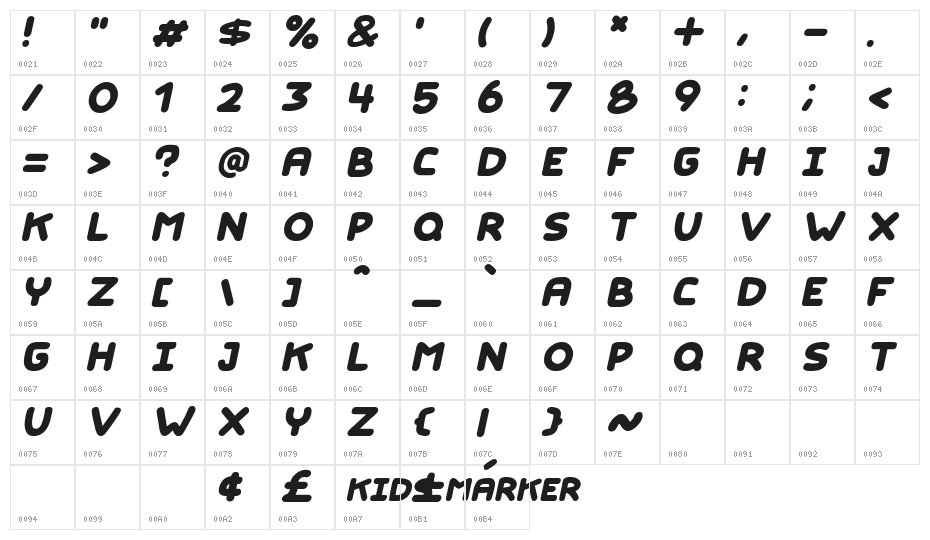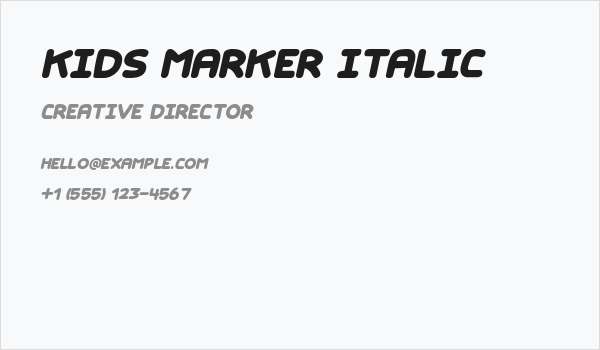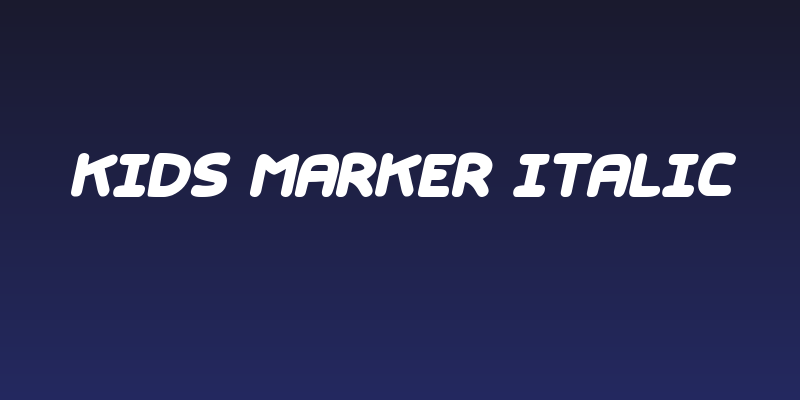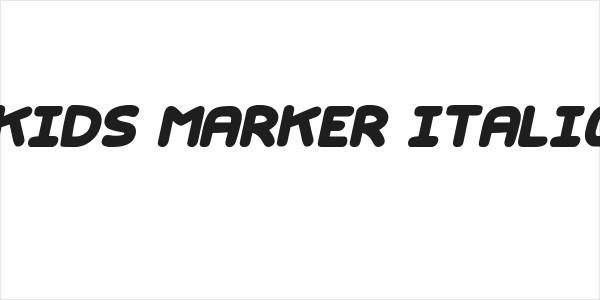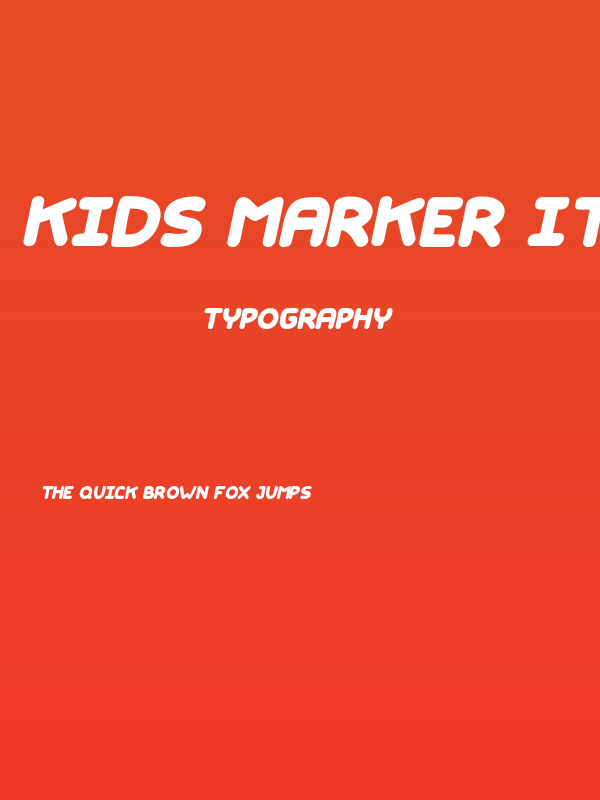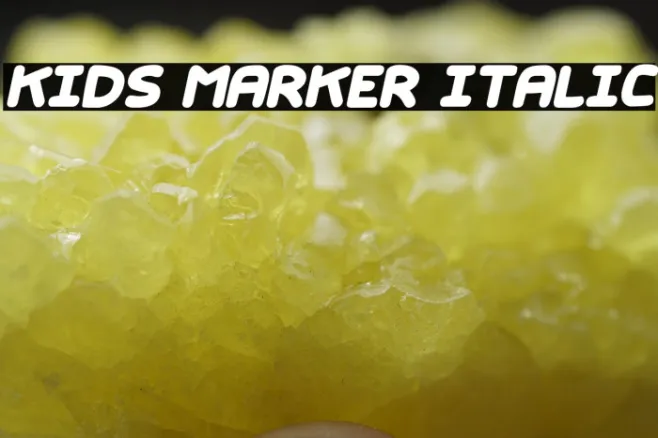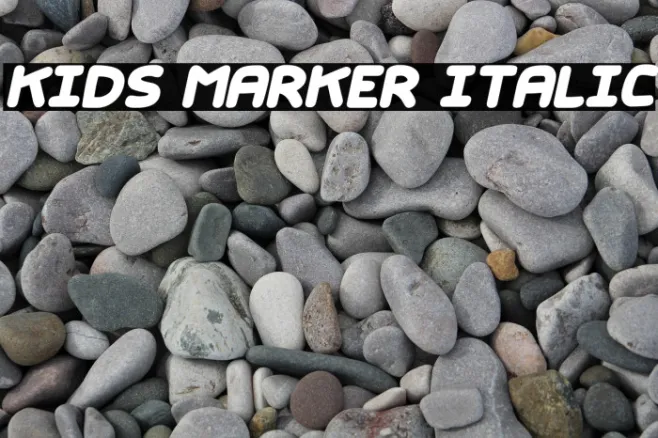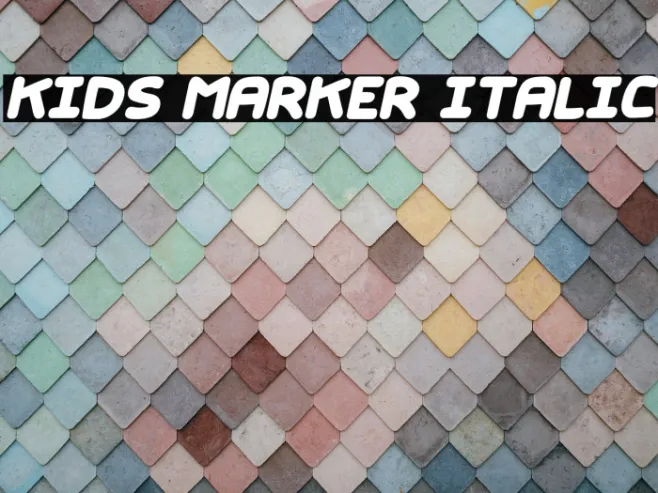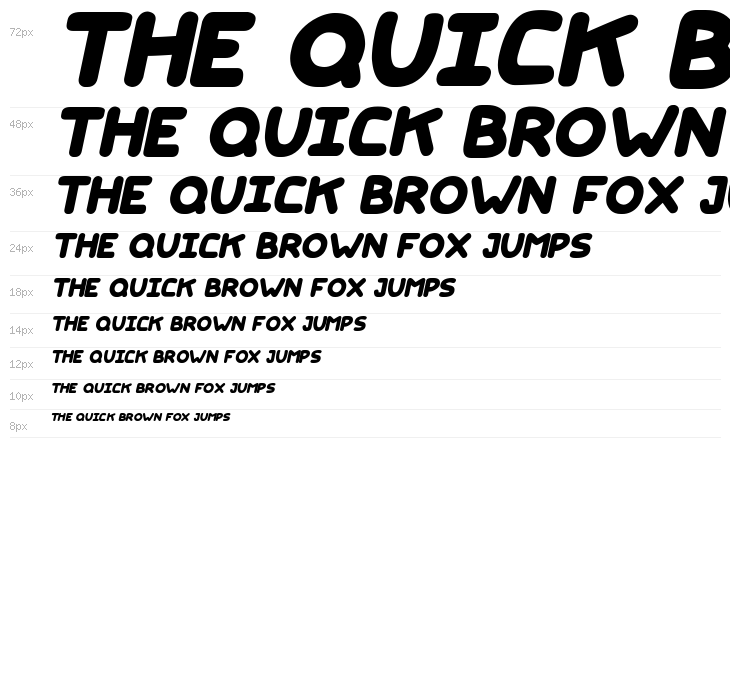
Kids Marker Italic Font
Kids Marker Italic Description
This playful and bold font features rounded, thick strokes that give it a friendly and approachable appearance. The letters are slightly slanted, adding a dynamic and energetic feel. The font mimics the look of hand-drawn marker writing, making it ideal for projects that require a casual and informal touch. The characters are evenly spaced, ensuring readability while maintaining a whimsical style. Its boldness and rounded edges make it stand out, perfect for capturing attention in various creative applications.
| Proposed Projects | Ideal for children's books, playful branding, casual invitations, and educational materials. |